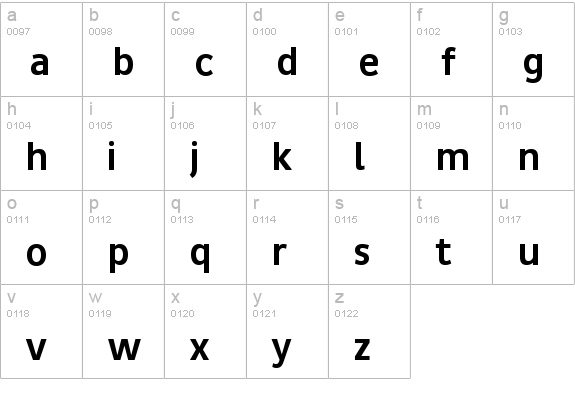
Pluto Sans Cond Medium Font Details
Pluto Sans Cond Medium is a balanced, medium-weight, condensed-width variant in the Pluto typeface family \xE2\x80\x94 well suited to sub-headlines, navigation, and balanced editorial work.
Pluto Sans Cond Medium font is a sleek and modern typeface designed to make your projects stand out. With its clean lines and balanced proportions, this font exudes a sense of professionalism and sophistication. Perfect for a wide range of design applications, Pluto Sans Cond Medium is versatile and easy to read, making it ideal for both print and digital projects. And the best part? Pluto Sans Cond Medium font is available for free download at FontsMarket.com. That's right, you can elevate your designs with this high-quality font without having to spend a penny. Don't miss out on this opportunity to add a touch of elegance to your creations with Pluto Sans Cond Medium. Download it now and see the difference it can make in your design projects.